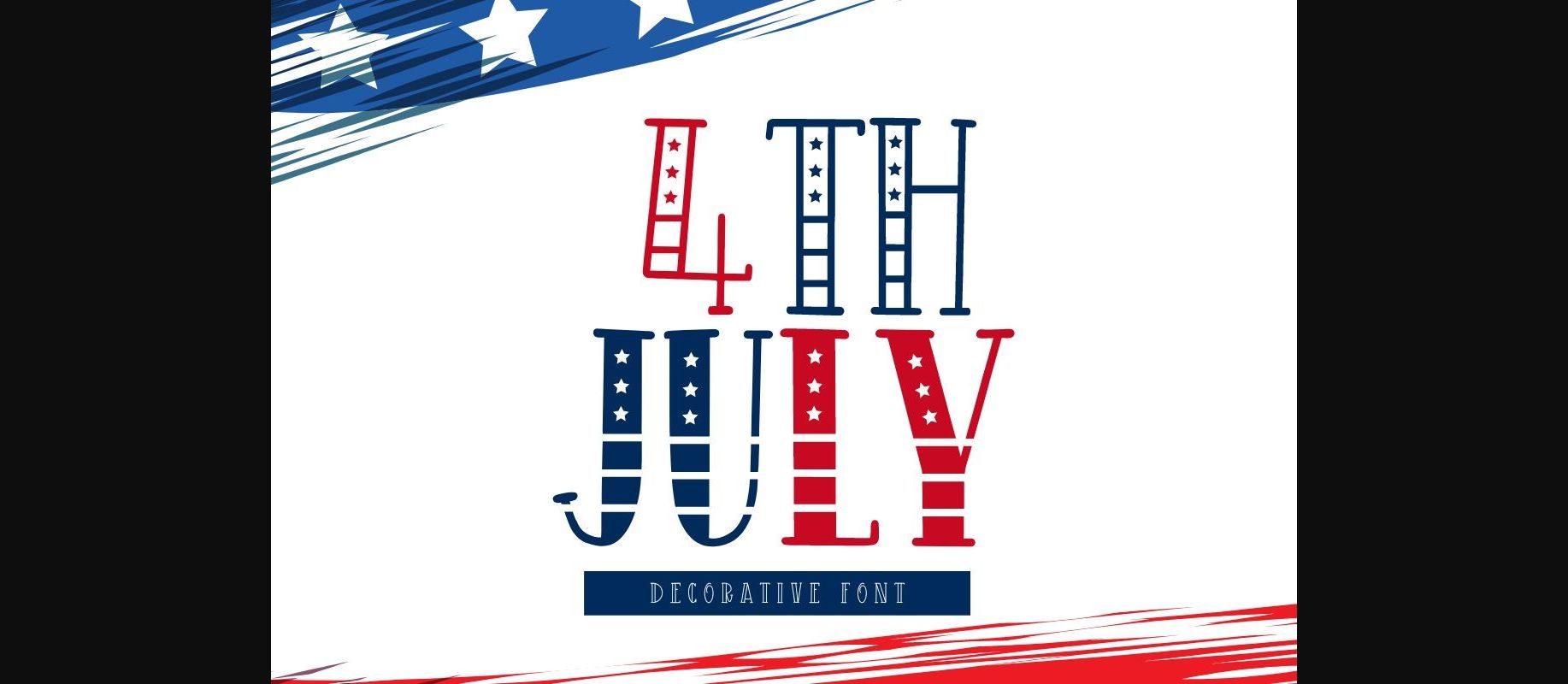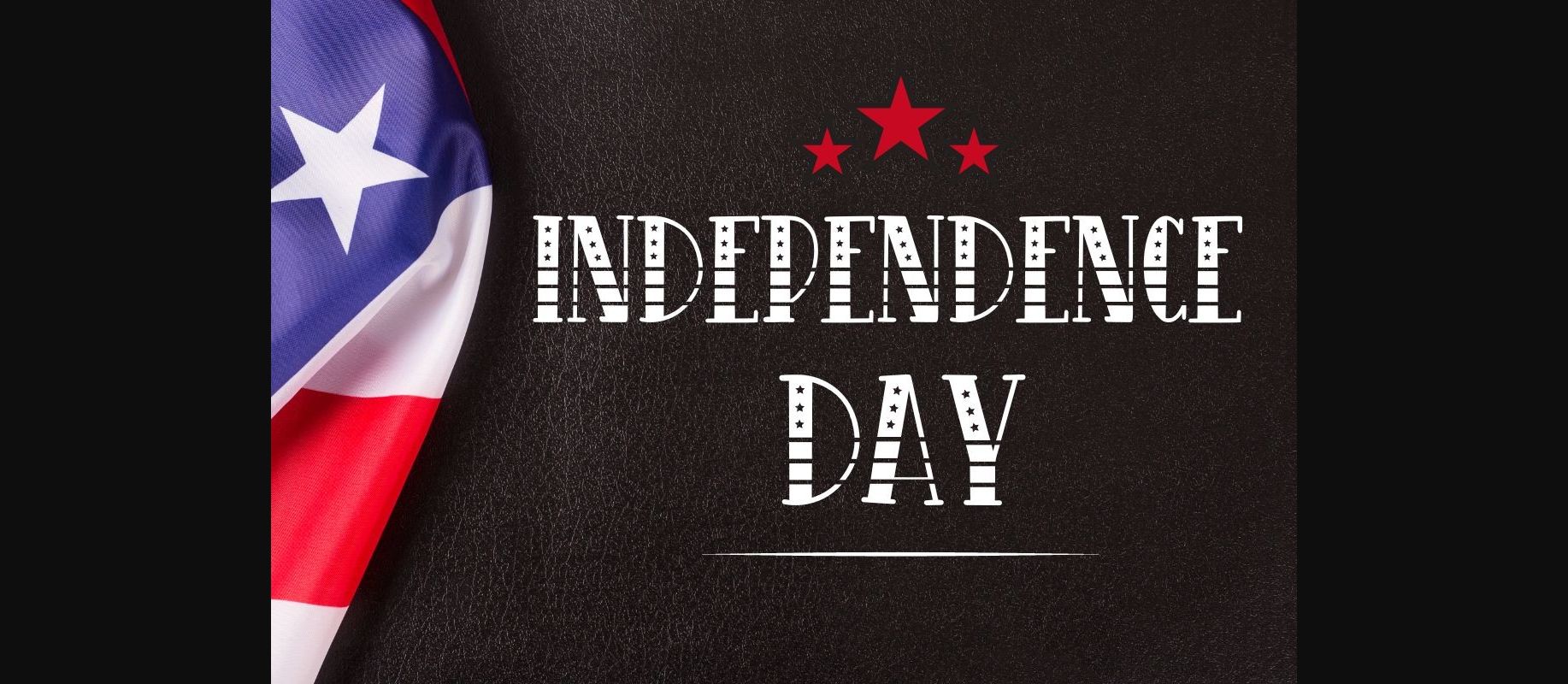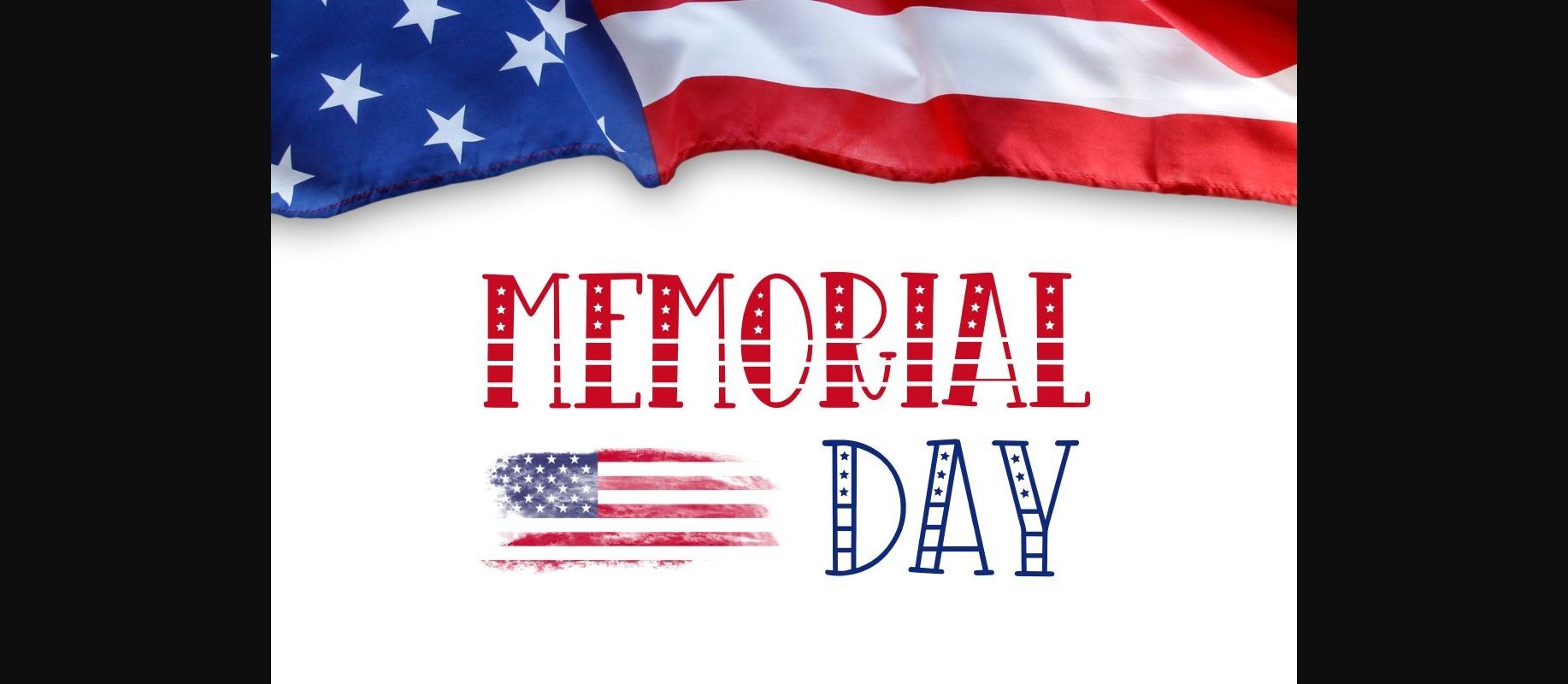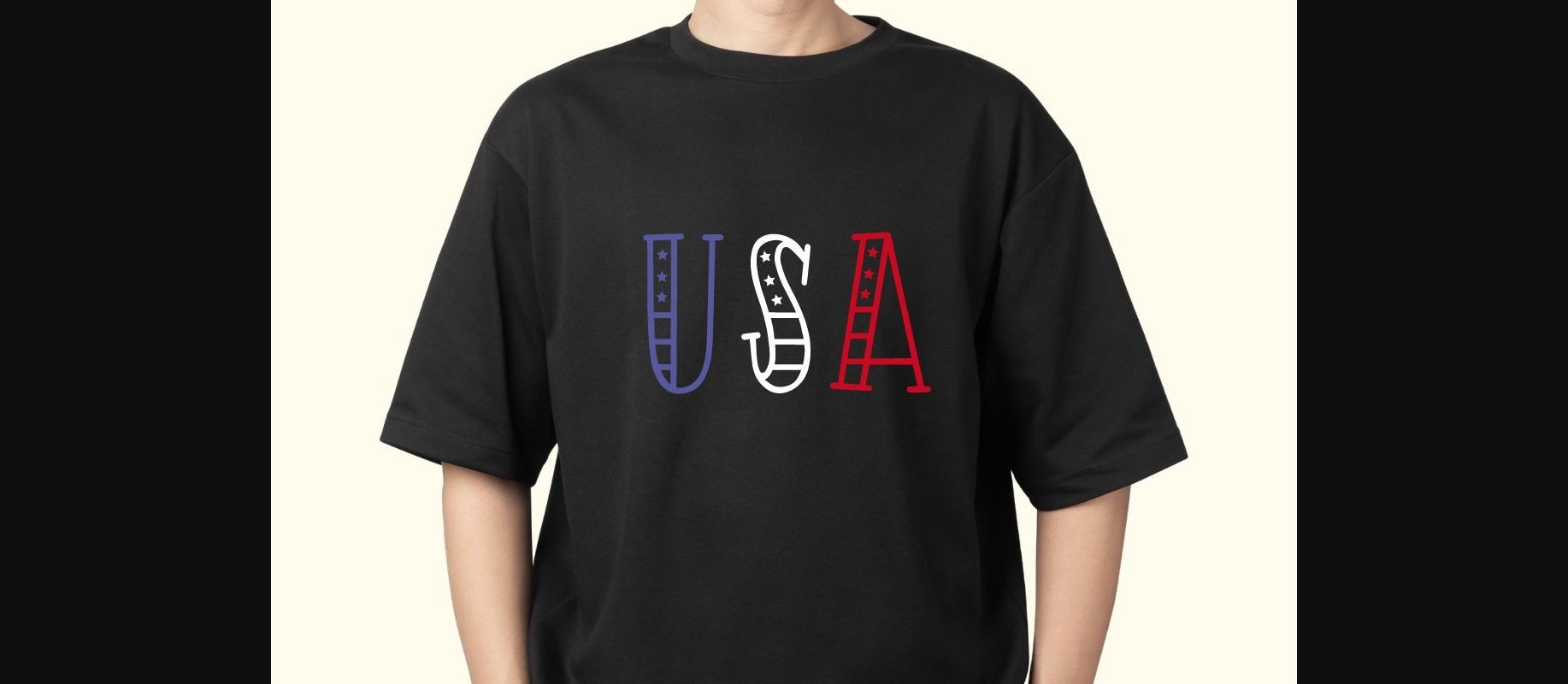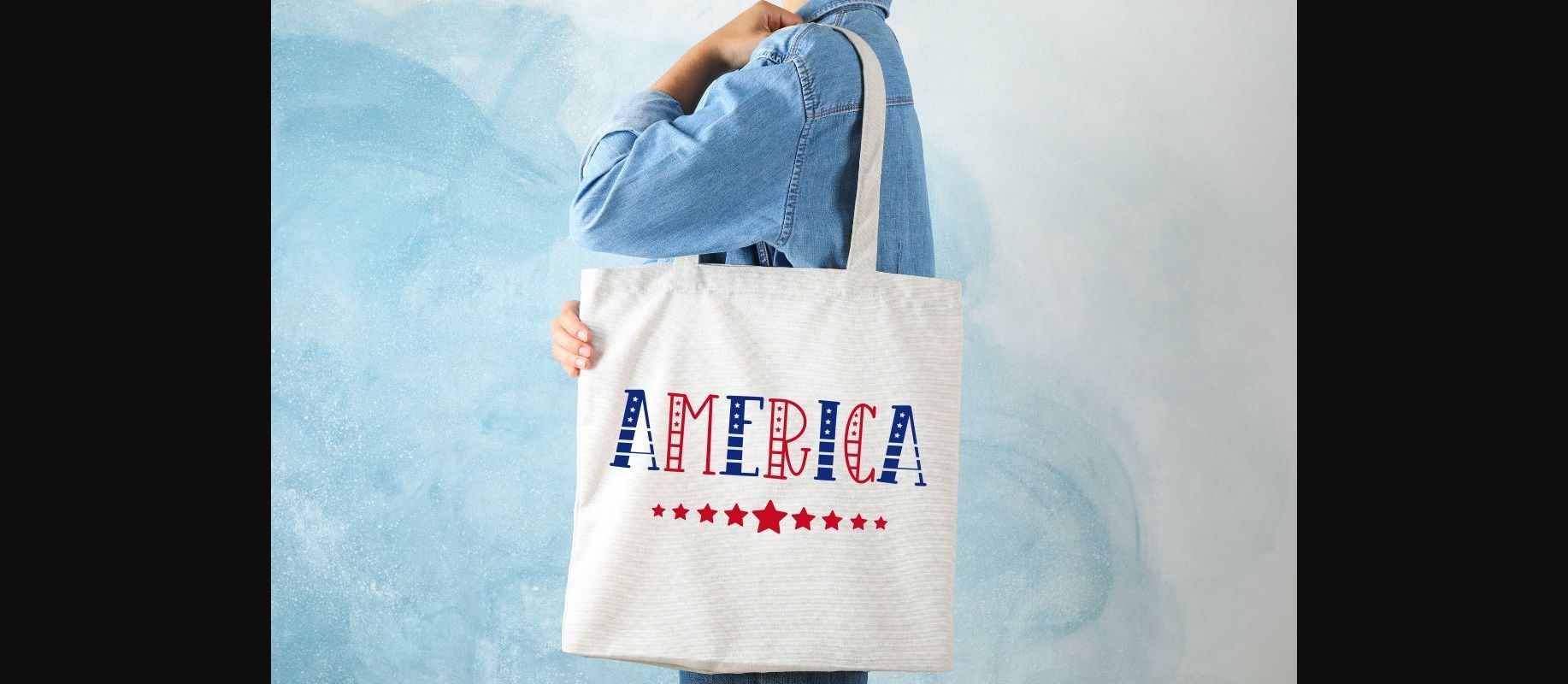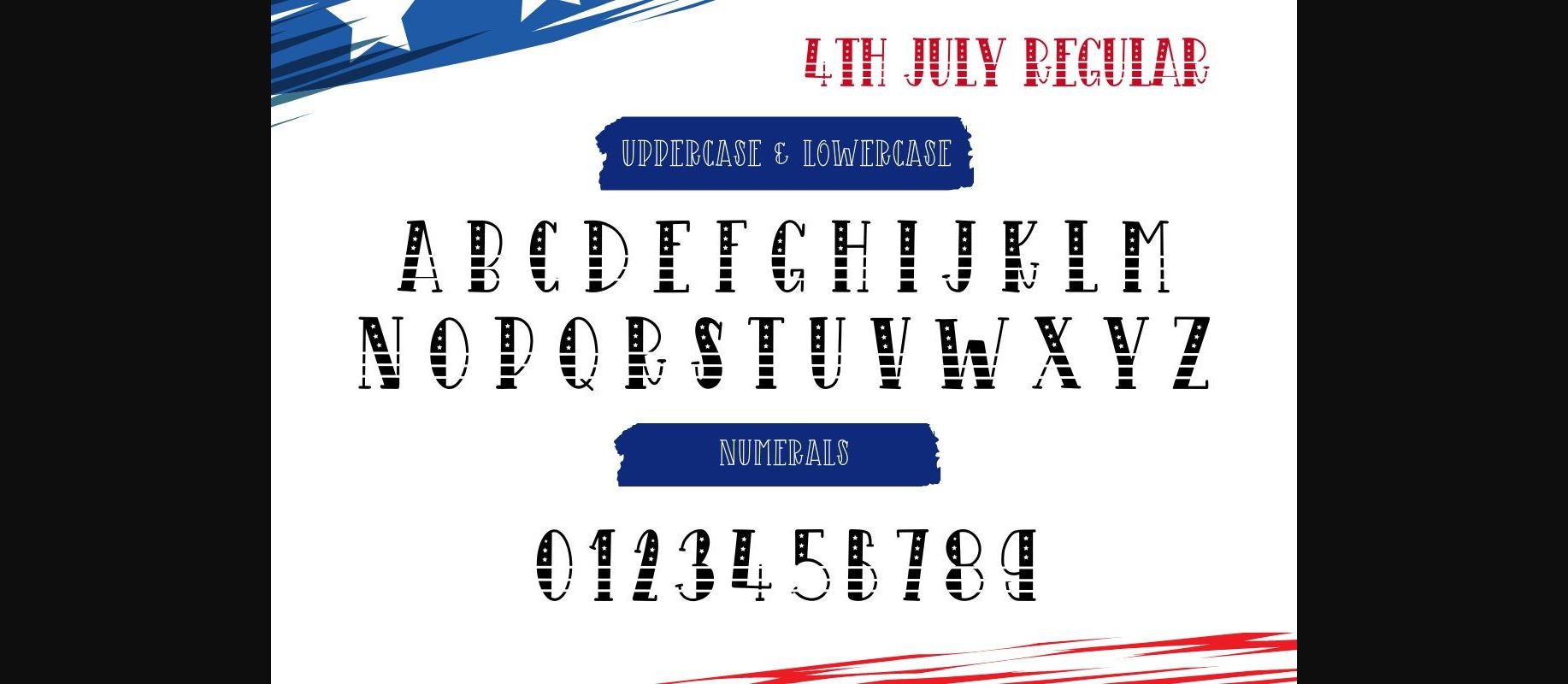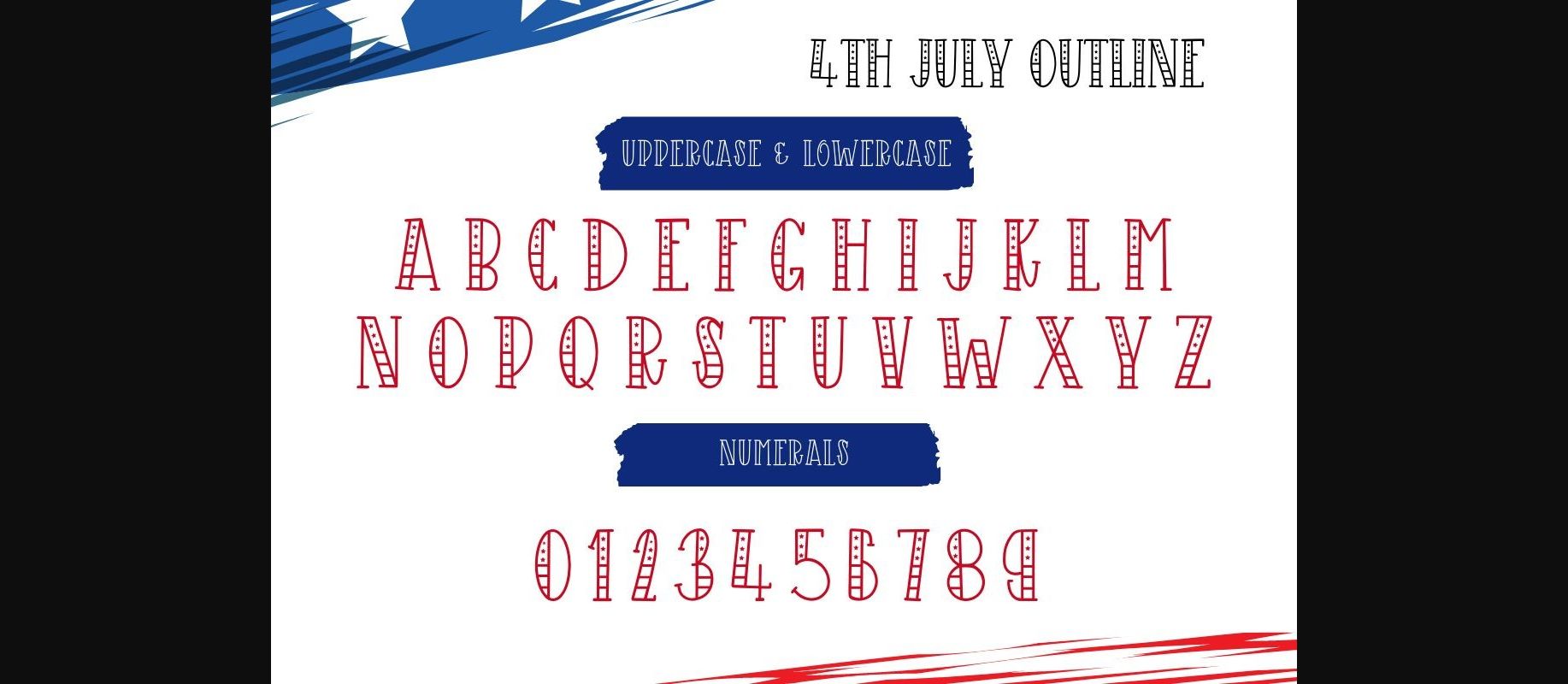
4th July Font
About 4th July Font
4th July is a fun and cute decorative font. This font uses stars to decorate the letters to match the 4th of July celebration. This font has a lovely quirky vibe and will help you create cool designs for Independence Day or other patriotic events.